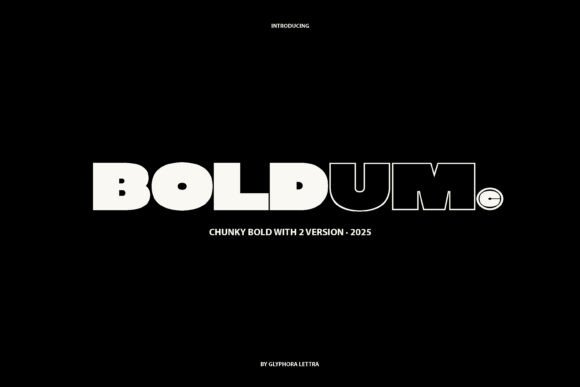
Introducing Boldum Font: The Ultimate Typeface for Playful yet Powerful Branding
In the world of typography, finding the perfect font that embodies both playfulness and power can be a daunting task. However, look no further than Boldum Font, a chunky bold typeface designed to feel playful yet powerful. With its unique blend of friendly warmth and confident geometric structure, Boldum is the ideal choice for modern branding, posters, packaging, and digital media.
The Design Behind Boldum
Boldum’s design is centered around creating a typeface that exudes both expressiveness and reliability. Each letter is carefully crafted to carry a friendly warmth, making it perfect for brands that want to convey a sense of approachability and friendliness. At the same time, Boldum’s confident geometric structure ensures that it remains strong and dependable, making it suitable for a wide range of applications.
Key Features of Boldum Font
- Chunky Bold Design: Boldum’s bold design makes it perfect for headlines, titles, and short phrases. Its chunky letters are sure to grab attention and make a lasting impression.
- Playful yet Powerful: Boldum’s unique blend of playfulness and power makes it an excellent choice for brands that want to convey a sense of fun and energy while maintaining a level of sophistication.
- Friendly Warmth: Each letter in Boldum is designed to carry a friendly warmth, making it perfect for brands that want to convey a sense of approachability and friendliness.
- Confident Geometric Structure: Boldum’s confident geometric structure ensures that it remains strong and dependable, making it suitable for a wide range of applications.
Use Cases for Boldum Font
Boldum’s versatility makes it an excellent choice for a wide range of applications, including:
- Branding: Boldum is perfect for creating bold and eye-catching logos that make a lasting impression.
- Posters: Boldum’s chunky bold design makes it ideal for creating attention-grabbing posters that stand out.
- Packaging: Boldum’s playful yet powerful design makes it an excellent choice for packaging design that needs to stand out on store shelves.
- Digital Media: Boldum’s confident geometric structure and friendly warmth make it perfect for digital media, including social media graphics, website headers, and more.
Why Choose Boldum Font?
With so many typefaces available, why choose Boldum Font? Here are just a few reasons:
- Unique Blend of Playfulness and Power: Boldum’s unique blend of playfulness and power makes it an excellent choice for brands that want to convey a sense of fun and energy while maintaining a level of sophistication.
- Versatility: Boldum’s versatility makes it an excellent choice for a wide range of applications, from branding and posters to packaging and digital media.
- Easy to Read: Despite its bold design, Boldum is easy to read, making it perfect for use in a variety of contexts.
In conclusion, Boldum Font is an excellent choice for designers and crafters looking for a typeface that embodies both playfulness and power. With its unique blend of friendly warmth and confident geometric structure, Boldum is perfect for modern branding, posters, packaging, and digital media. Whether you’re looking to create a bold and eye-catching logo or a playful yet powerful poster, Boldum Font is the perfect choice.